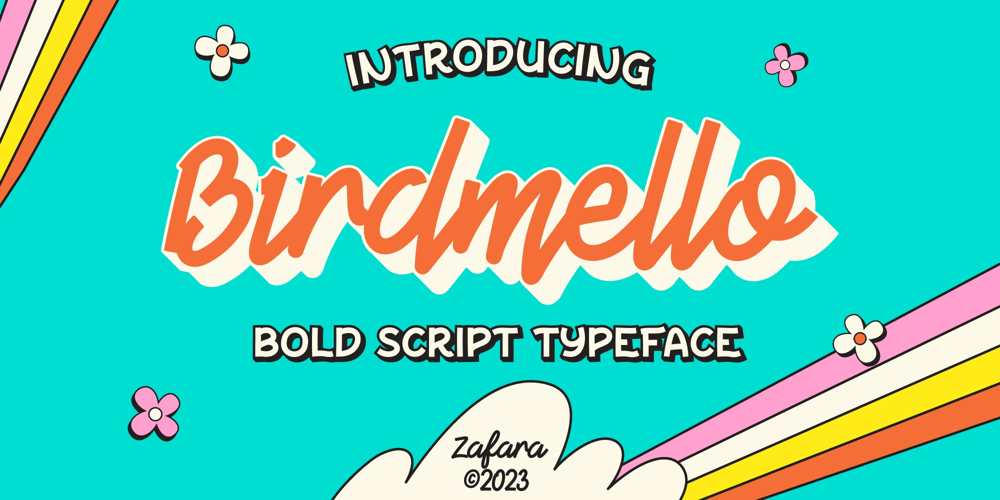
Birdmello Font Family was designed by Zohan Nur Muchlis and published by Zafara Studios. Birdmello contains 1 styles and family package options. Birdmello is a font with a bold script look. This font is perfect for greeting cards, logotypes, branding, posters, and much more. However, basically it can be used with a wider range of themes depending on your design needs.The details:- 218 Glyphs: Uppercase, Lowercase, Numbers, Punctuation & Language Support